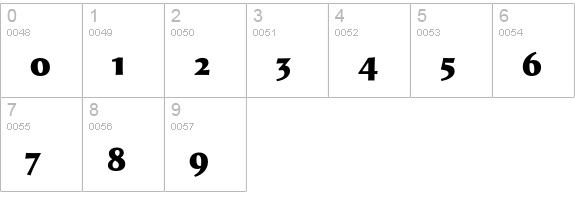
ShellSans-Black is a maximum-weight, dramatic variant in the ShellSans typeface family \xE2\x80\x94 well suited to maximum-impact headlines, posters, and packaging.
ShellSans-Black font is a bold and striking typeface that demands attention with its confident and powerful presence. Designed with utmost precision, this font exudes a sense of strength and sophistication that is perfect for making a bold statement. With its clean lines and sturdy structure, ShellSans-Black font is a versatile choice for a wide range of design projects. Whether it's used for headlines, branding, or any other creative endeavor, this font effortlessly adds a touch of modern elegance to any composition. One of the most appealing aspects of ShellSans-Black font is that it is available for free. That's right, this high-quality font can be freely downloaded at FontsMarket.com. This means that you can easily access and utilize this exceptional typeface in your projects without any constraints or limitations. The designers of ShellSans-Black font have taken great care to ensure that every character is meticulously crafted, resulting in a font that is not only visually stunning but also highly legible. Each letter has been carefully balanced, making it ideal for both large display settings and smaller body text. Whether you're a professional graphic designer or an amateur enthusiast, ShellSans-Black font is a must-have in your font collection. Its bold and confident style will elevate your designs to a whole new level, leaving a lasting impression on viewers. So why wait? Experience the power and beauty of ShellSans-Black font today! Visit FontsMarket.com and download this remarkable font for free. Unleash your creativity and let ShellSans-Black font be the hero of your next design project.